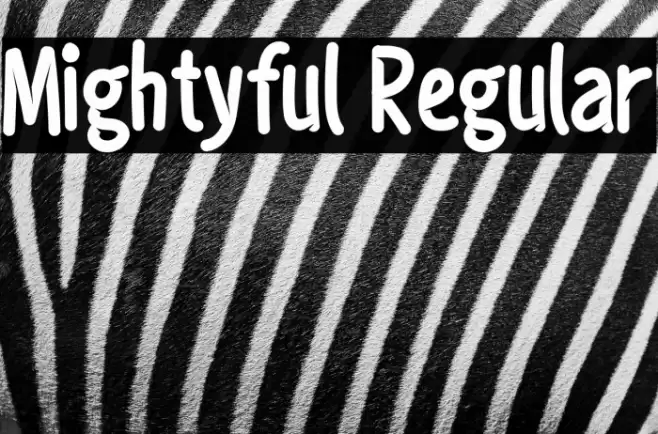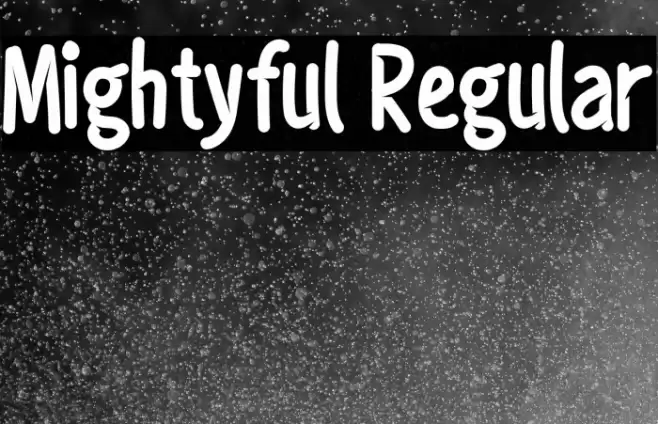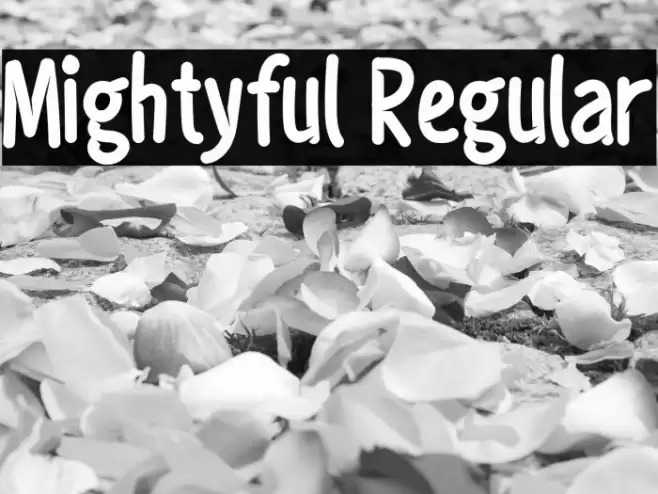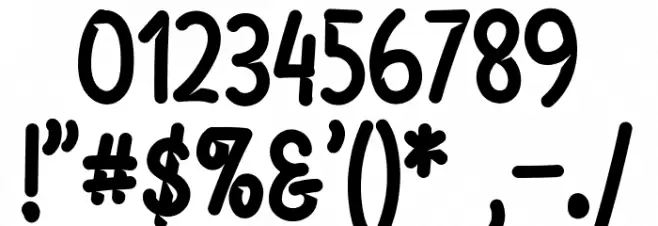
Mightyful Regular Font
Mightyful Regular Description
This font features a playful and bold handwritten style, characterized by its rounded edges and slightly irregular strokes that give it a casual, friendly appearance. The uppercase and lowercase letters maintain a consistent height, contributing to a uniform look across text. The numerals and special characters are designed to match the overall aesthetic, ensuring a cohesive appearance. Its thick strokes and rounded forms make it highly legible, even at smaller sizes, while the informal style adds a touch of personality to any design.
A bold, playful handwritten font with rounded edges and consistent height from Regular fonts.
- Proposed Projects: Ideal for children's books, playful branding, greeting cards, and social media graphics.
- Overall Style: Casual